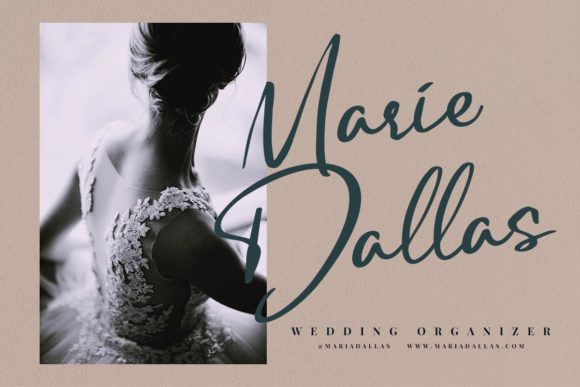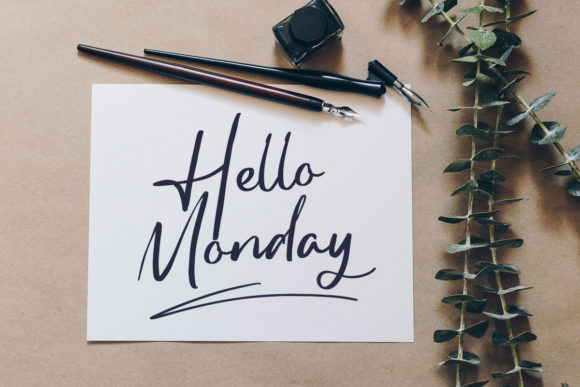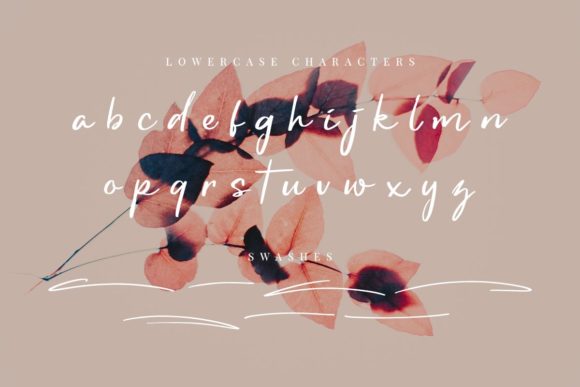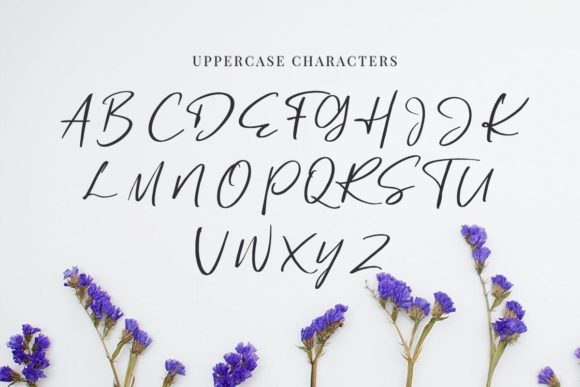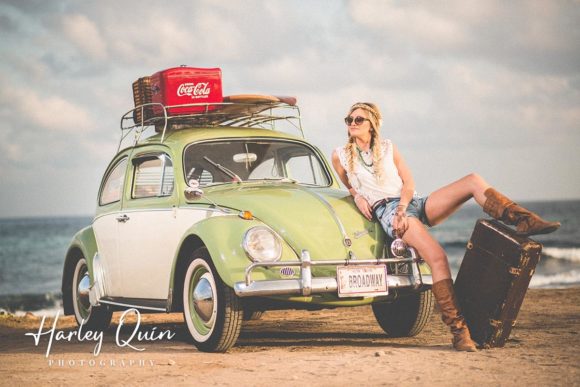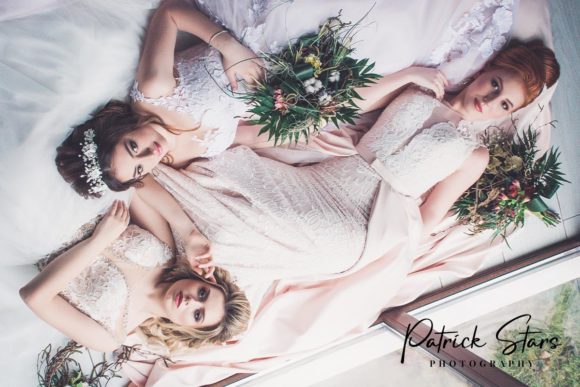
Introduction to Handlettery Font
Have you ever been working on a creative project, and you’re struggling to find the perfect font to bring your vision to life? I know I have. There’s nothing more frustrating than staring at a blank page, trying to decide on the perfect font to match your design aesthetic. But what if I told you there’s a font that’s so elegant, so dainty, and so versatile that it’s sure to elevate any design project? Say hello to the Handlettery Font, a beautiful and high-quality handwritten font that’s perfect for crafty ideas and creative projects.
The Handlettery Font is a design resource that’s waiting to be unleashed, and it’s completely free to download. With its sweet and delicate swashes, this font is sure to add a touch of whimsy and sophistication to any design. Whether you’re working on a letterhead, title, or stationery, the Handlettery Font is the perfect choice. And with its transparent background, you can easily combine it with other design elements to create a truly unique look.
Key Features of Handlettery Font
- High-quality, unique design perfect for creative projects, offering a stylish and elegant touch.
- Features a transparent background, allowing for easy customization and seamless integration with other design elements.
- Designed with precision and attention to detail, the Handlettery Font boasts a high resolution of 300 DPI, suitable for printing and digital use.
- Its unique characteristics, such as the distinctive lettering and subtle flair, set it apart from other fonts and make it a standout choice for creative projects.
Honest Review: Handlettery Font
I recently stumbled upon the Handlettery Font, and I must say it’s been a game-changer for my design projects. This free download has been a great addition to my design resource library.
What works well is the high-quality design of the font, which is perfect for creative projects that require a touch of elegance and sophistication. The transparent background is also a bonus, as it allows for seamless integration with any design.
Here are some of the features that I love about the Handlettery Font:
- Unique and stylish design
- Perfect for creative projects, such as invitations, posters, and social media graphics
- High-resolution images for crisp and clear printouts
- Transparent background for easy integration with other design elements
However, I do have to mention a few limitations ⚠️:
The font only comes in a few different styles, which might limit its versatility in certain projects. Additionally, the font may not be suitable for large-scale text, as it can be quite delicate.
Overall, I’m really impressed with the Handlettery Font, and I would highly recommend it to designers who are looking for a high-quality, creative resource. It’s definitely a great addition to any design library! ✨
Handlettery Font is perfect for creative projects such as wedding invitations, birthday cards, and social media graphics. It’s also suitable for business projects like logos, brochures, and presentations. With its high-quality design and transparent background option, Handlettery Font is a versatile resource for any design need.
The Handlettery Font has a high-resolution transparent background, making it ideal for use in creative projects that require a clean and seamless design. The font’s transparent background is created using a high-quality PNG file with a resolution of 300 DPI.